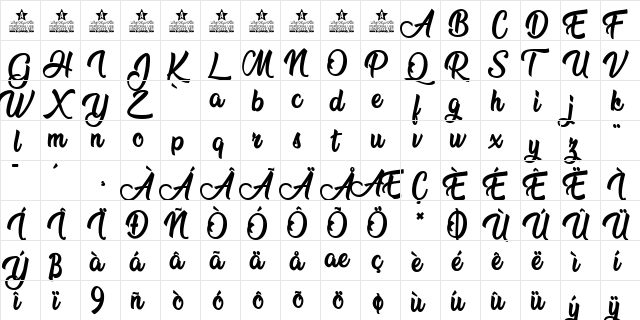
Run to the Hills Personal Use Regular
| Foundry | Billy Argel |
| Designer | Billy argel |
Design Context for Run to the Hills Personal Use Typeface
Run to the Hills Personal Use is a composed and adaptable typeface that performs quietly and consistently across a wide range of design contexts.